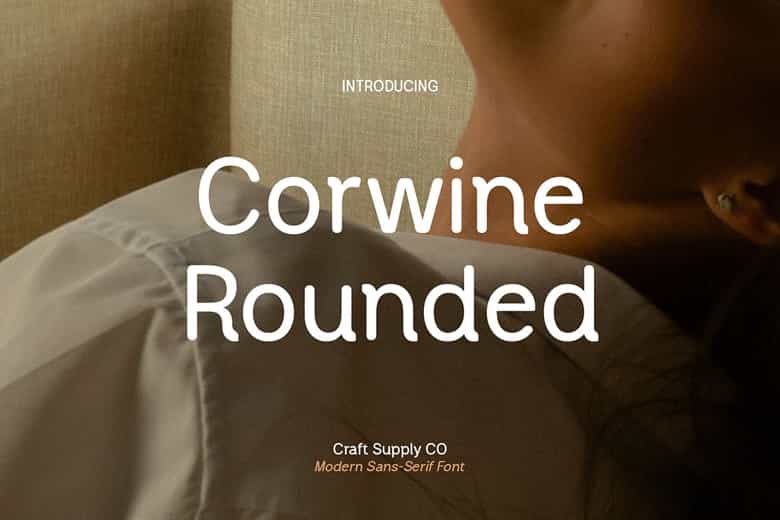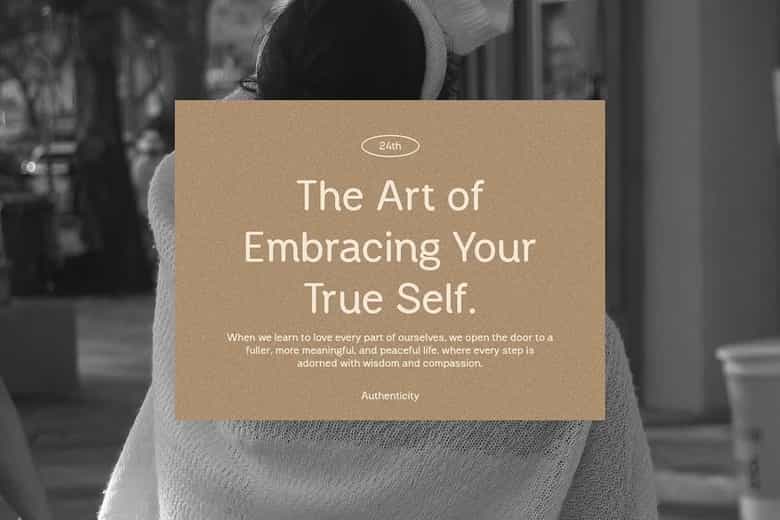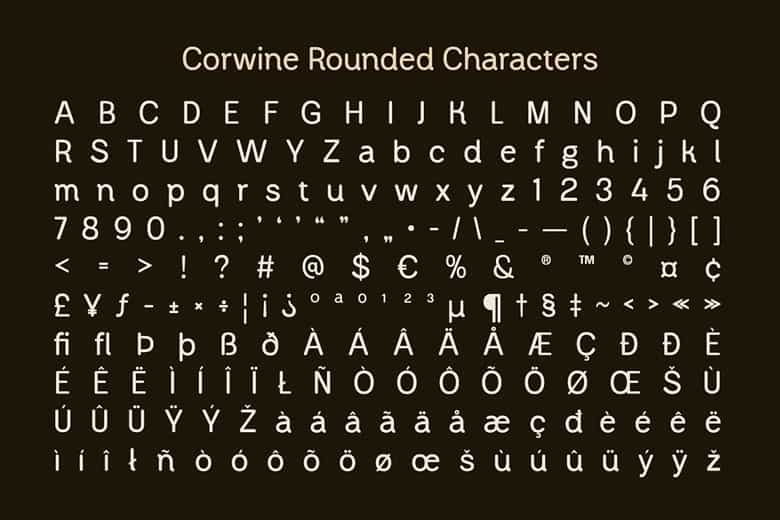
Corwine Rounded is a contemporary sans serif font that has the neatness of geometric typography with the gentle touch of the round shapes. It is simple, unadorned and has a clear format which is very professional, however, the slightly curved edges give a welcoming touch. This brilliant harmony puts Corwine Rounded in a position to be a great choice for modern styles that need both sophistication and legibility.